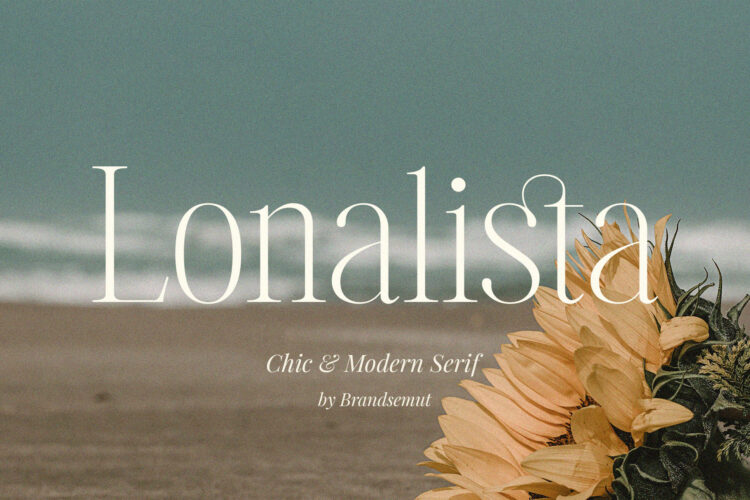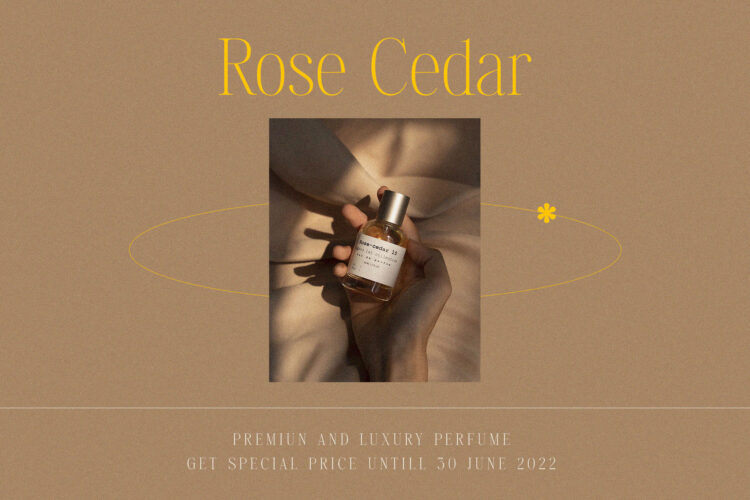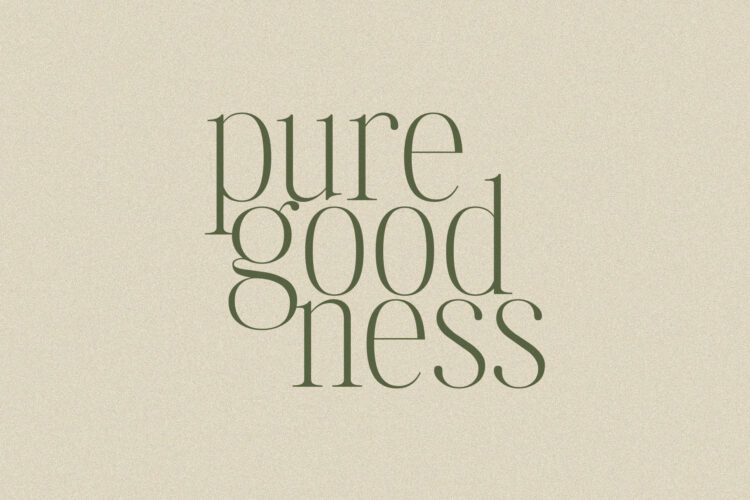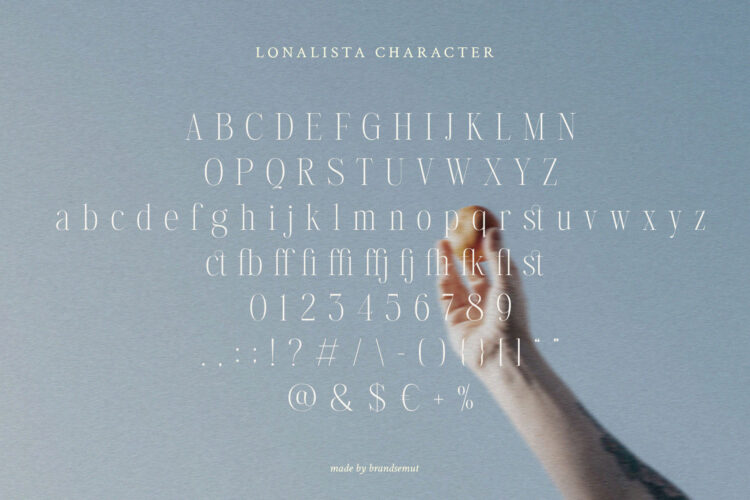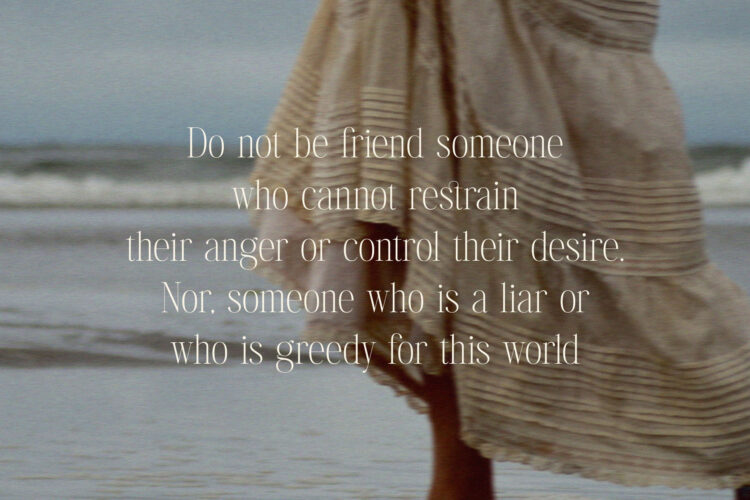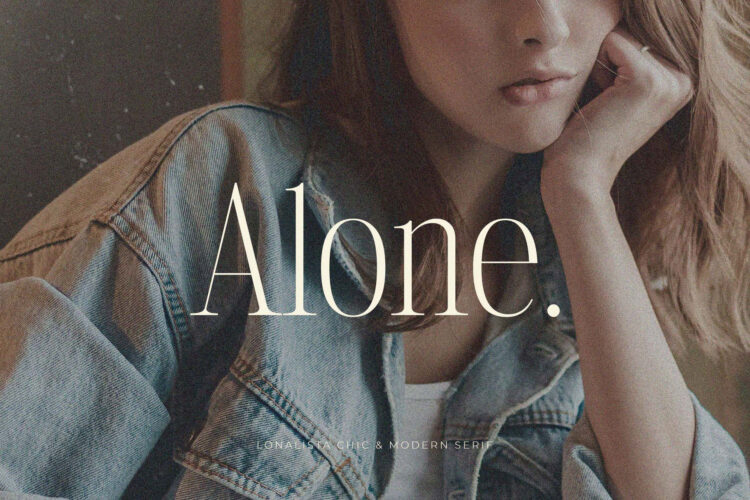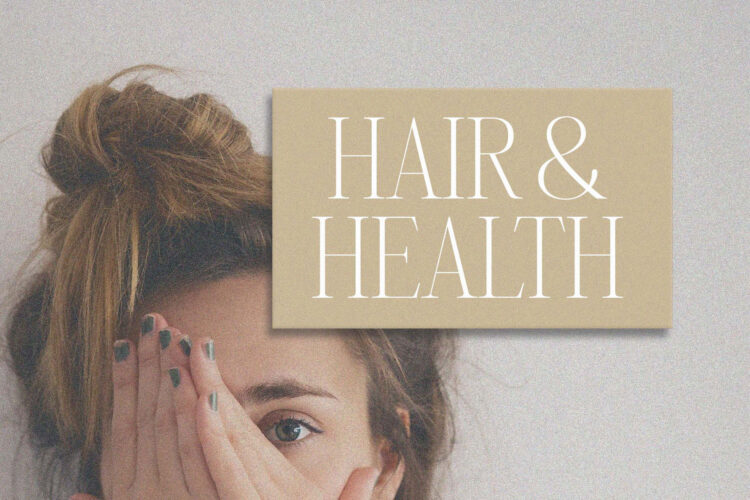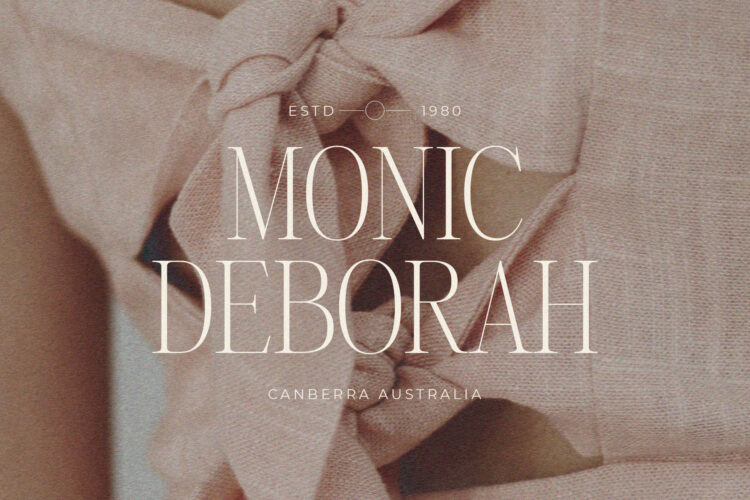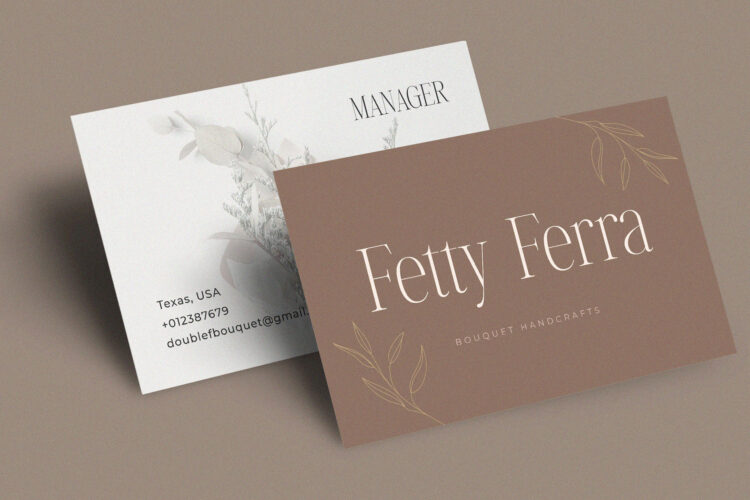
Introducing Lonalista Chic & Modern Serif.
Lonalista is a modern and chic typeface, best used as a display for headings, logos, branding, magazines, product packaging and invitations. Lonalista come with clean lines and smooth curves give any project an extra touch of class.